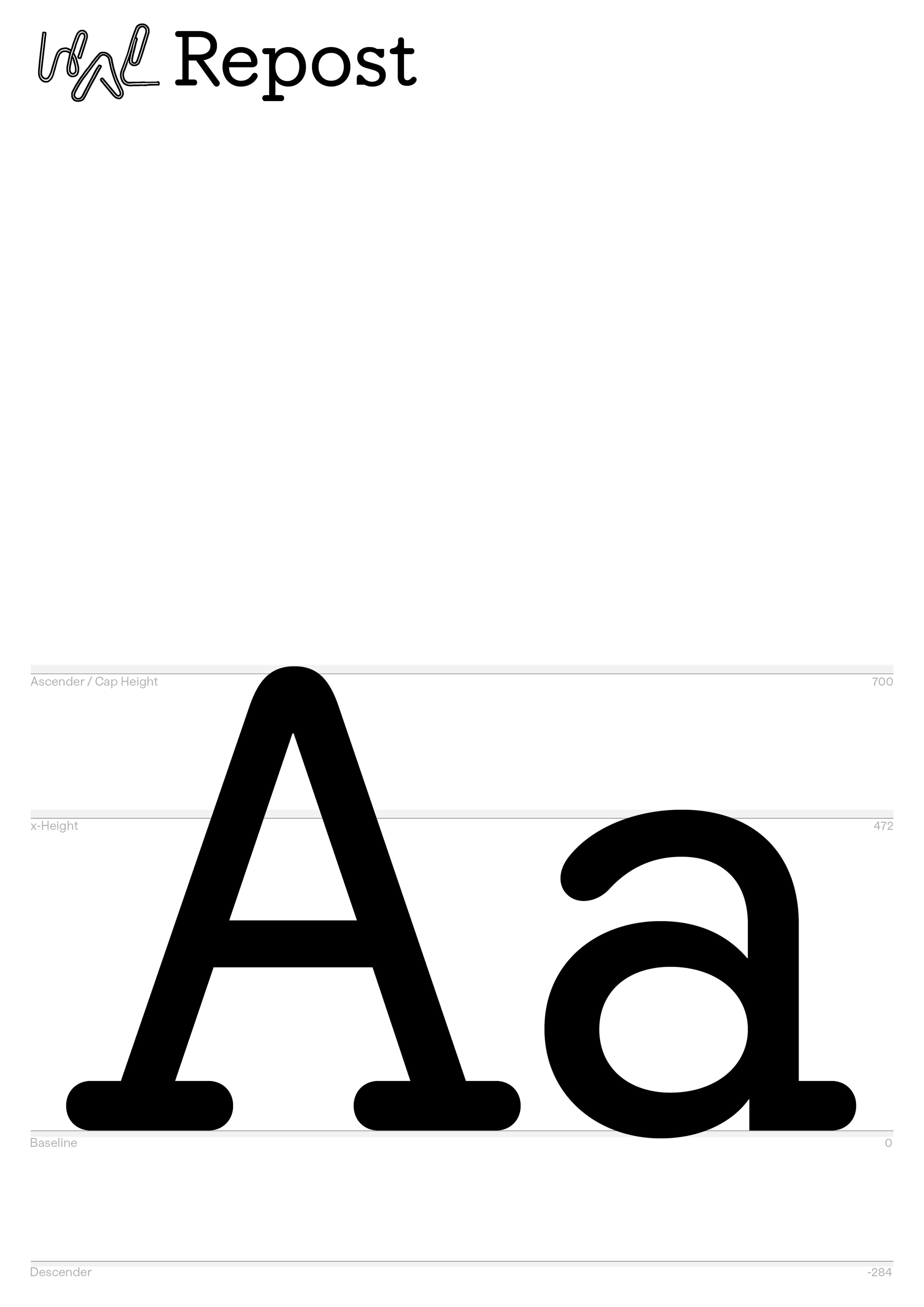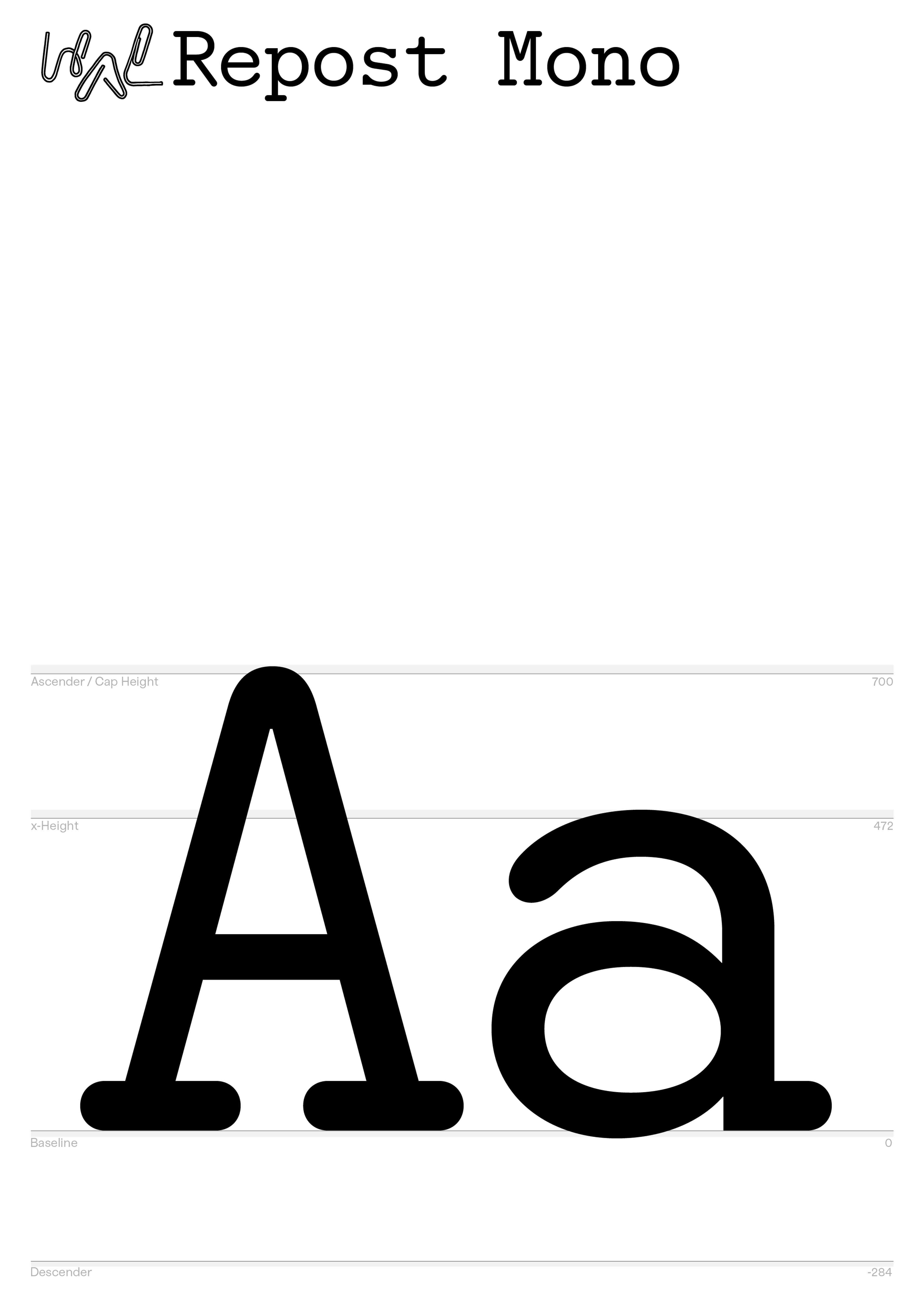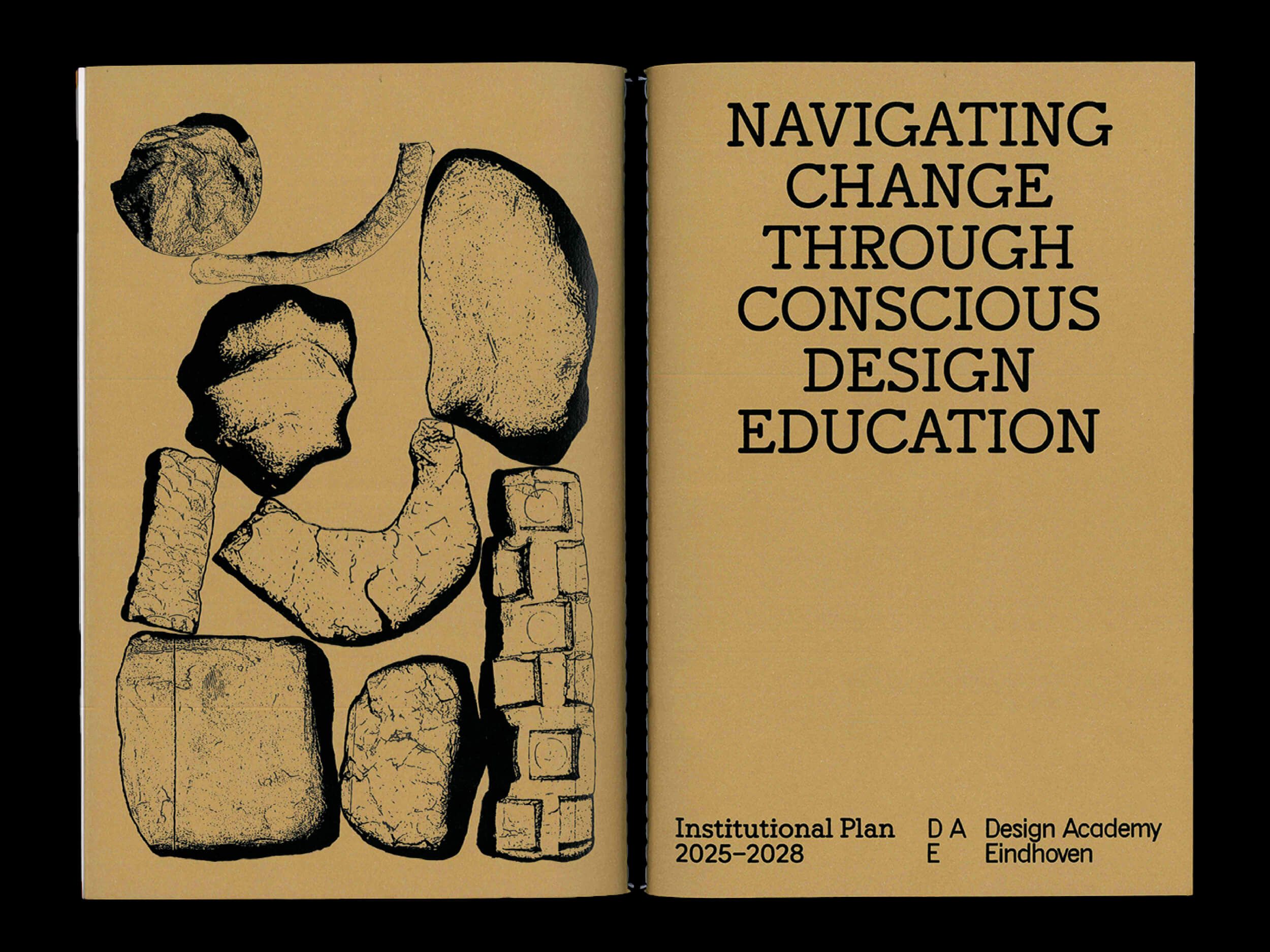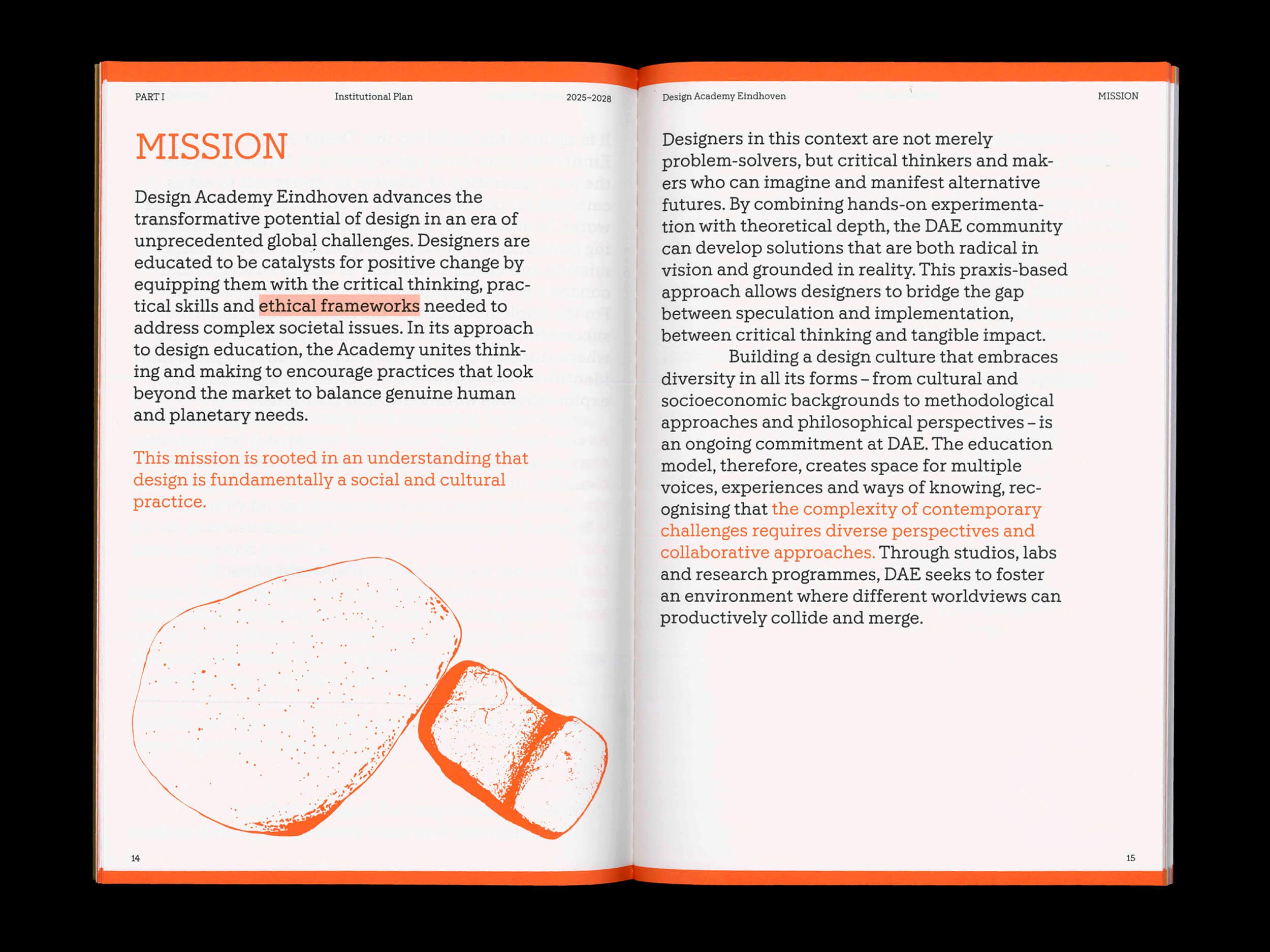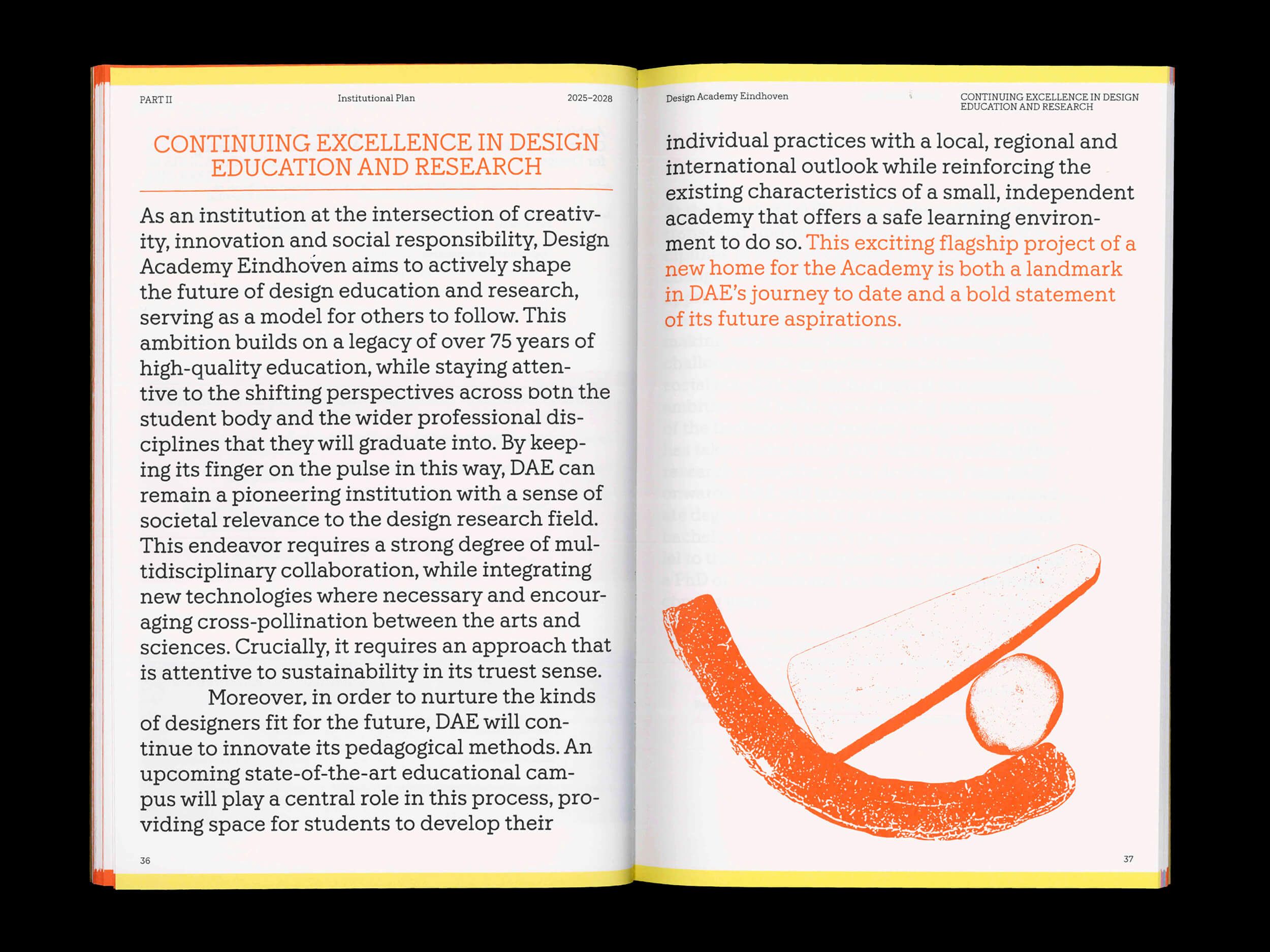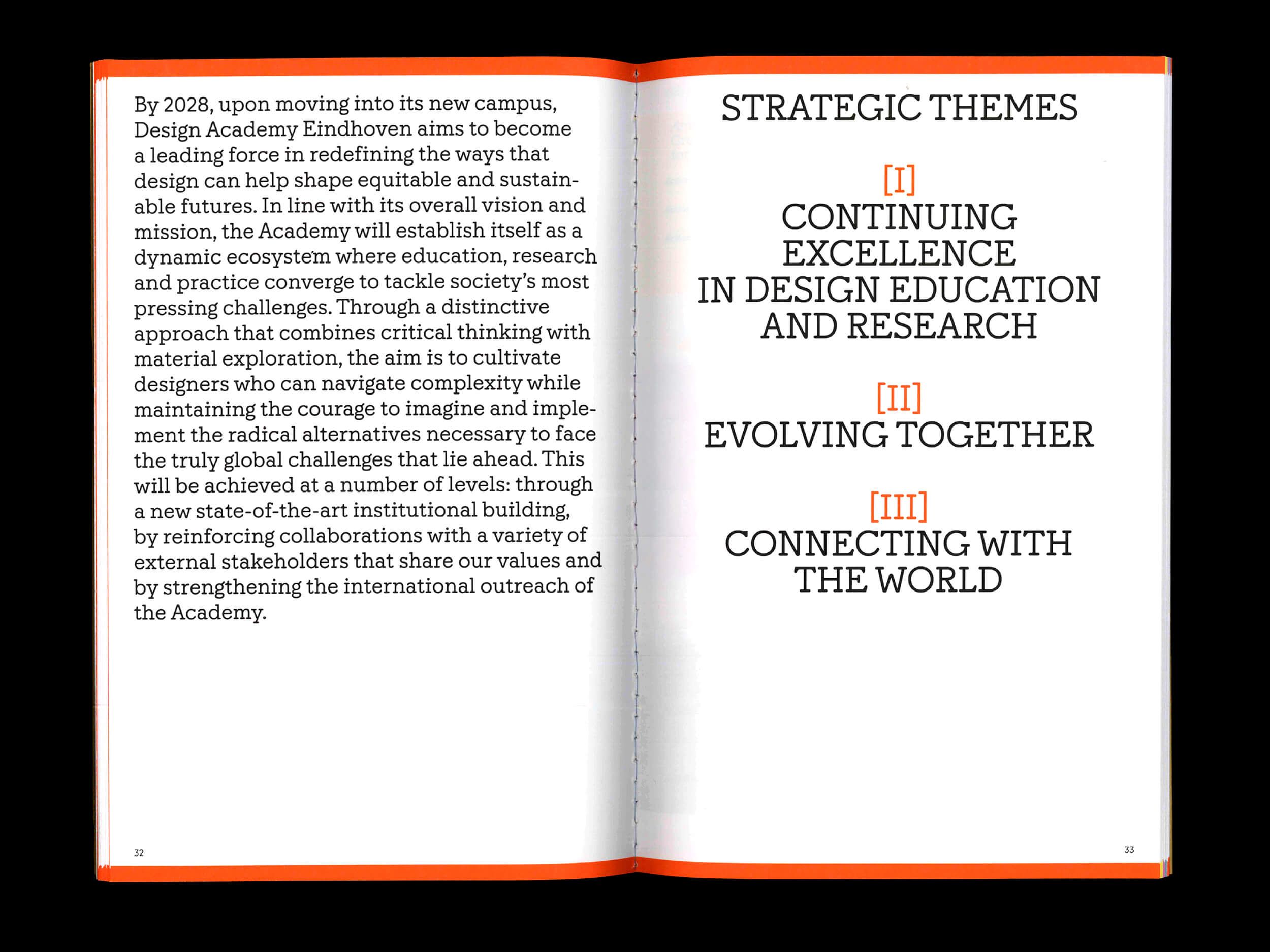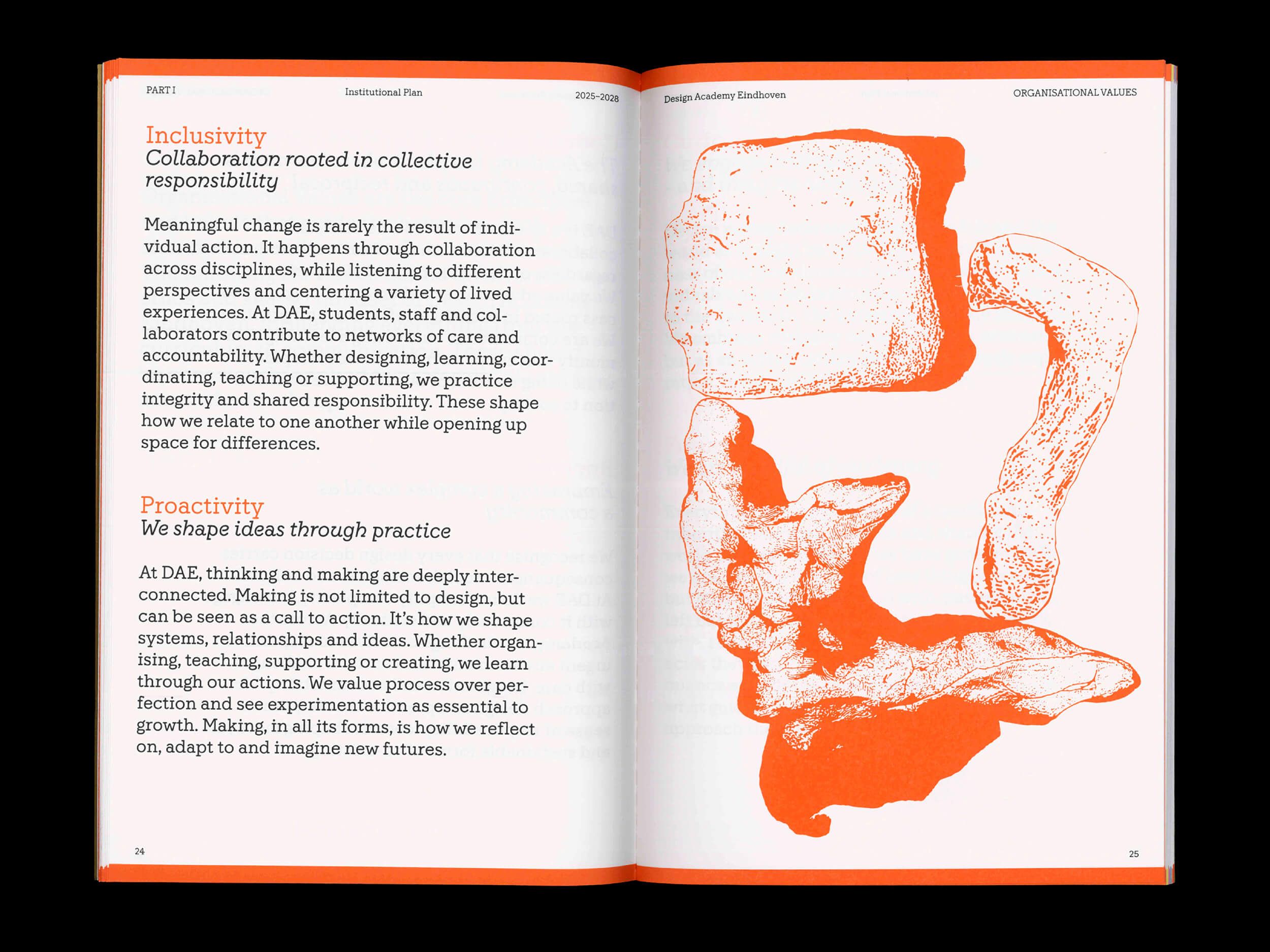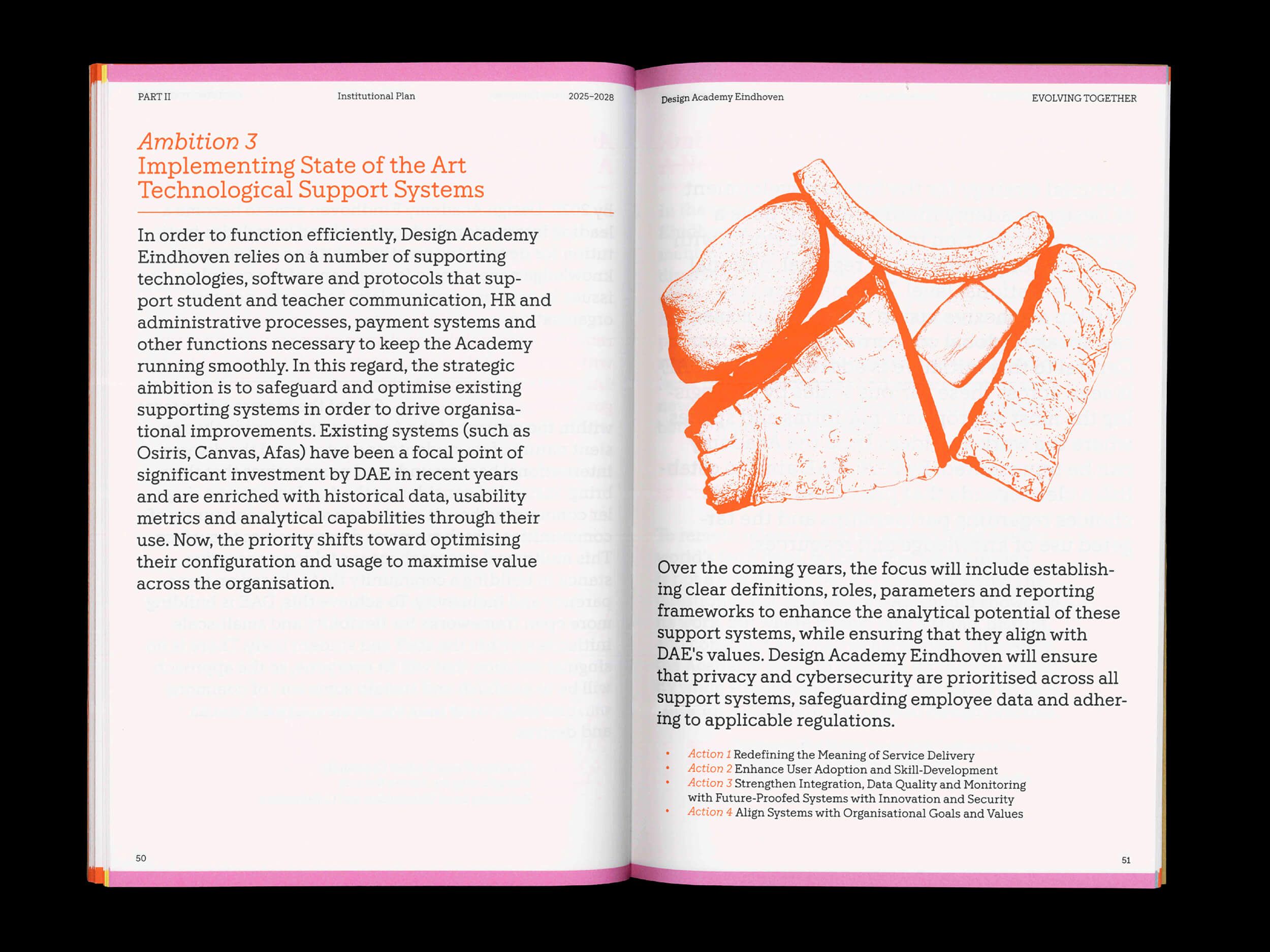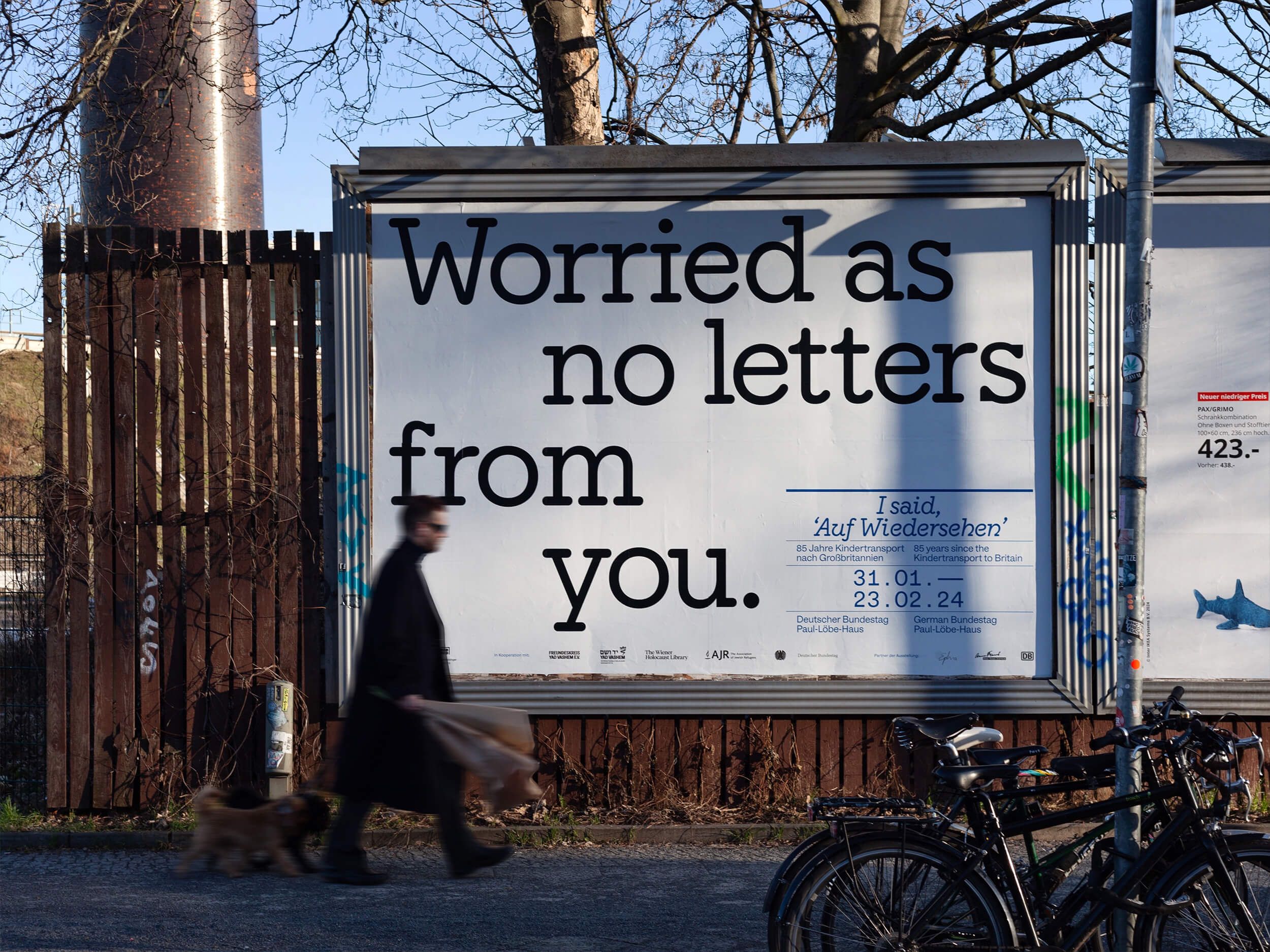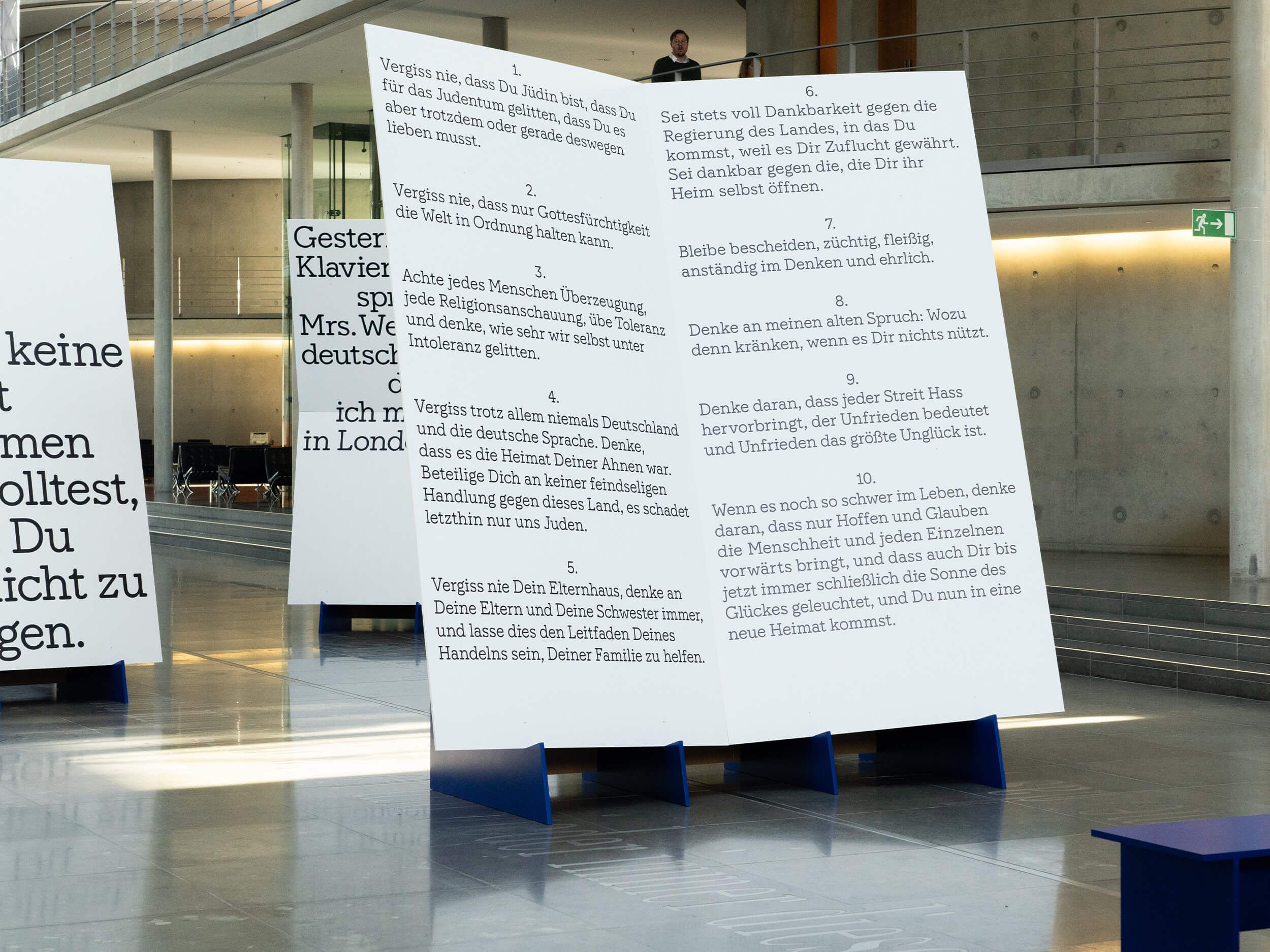
HAL Repost is a friendly, monolinear slab serif with rounded terminal endings, inspired by ATF’s Post Monotone No. 2 (a condensed version of Post Monotone, originally designed in 1903 for the Saturday Evening Post). The stylistic extension includes Regular, Regular Italic, Mono and Mono Italic. As dependable as a stable typewriter font, Repost’s winsome spirit is pleasantly charming and filled with character.